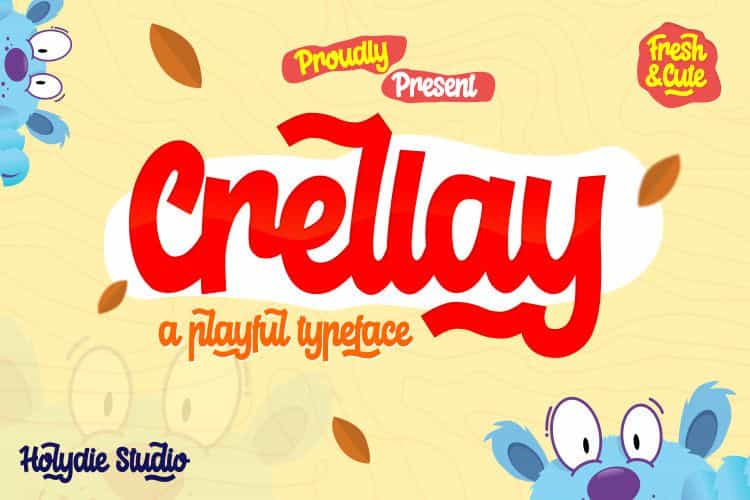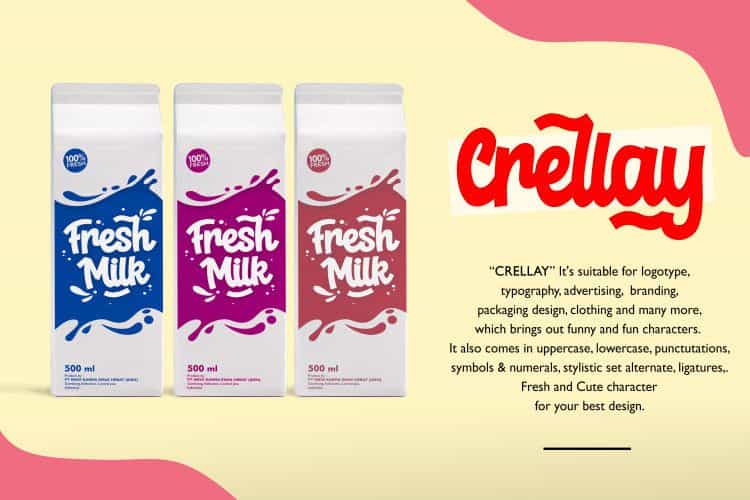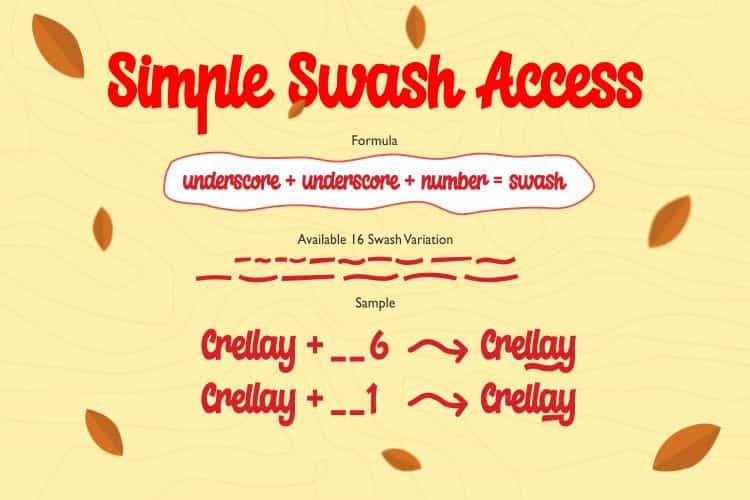
Typography is the manual kind of font display and among the many designs available, Crellay Font is one of them. This is what playful style font looks like. This can be so useful on kids project, logo design, social media posting, book covers and any other project. It is design and shared by Holydie Studio.The fuctions of the Website as below: